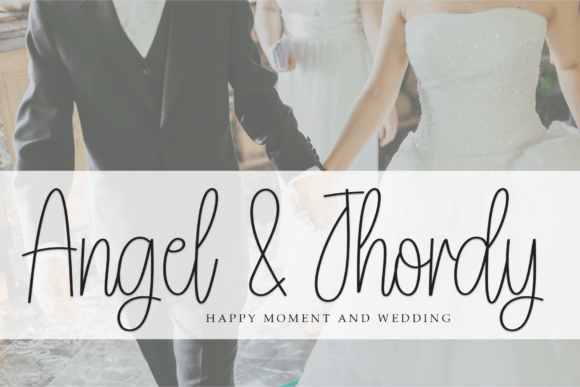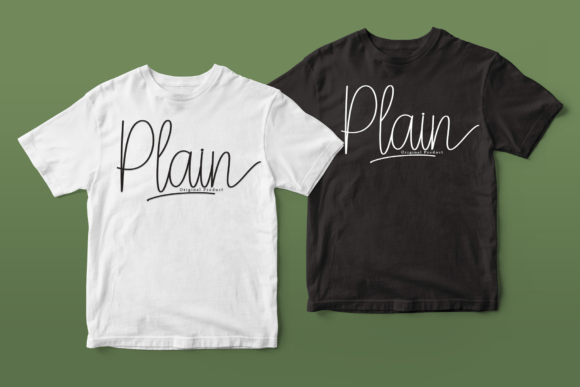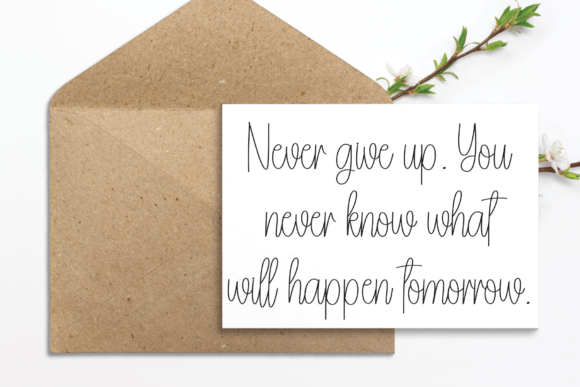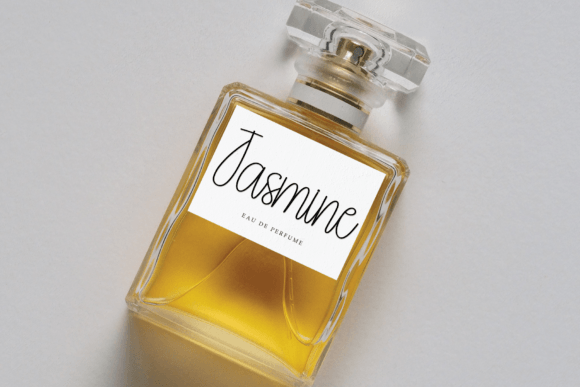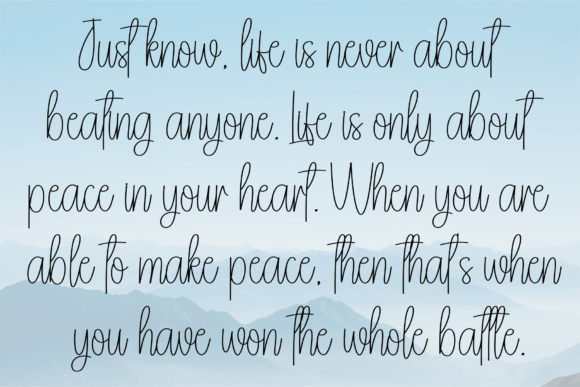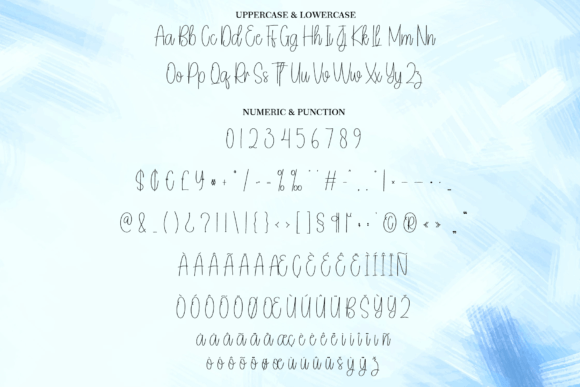
Discover the Joy of Bluey Font
Who hasn’t scribbled out a heartfelt message to a loved one, only to crumple it up in frustration because it just doesn’t look as lovely as it did in our minds? We’ve all been there, and it’s moments like these that make us appreciate the beauty of a well-designed font. That’s where Bluey Font comes in – a sweet and friendly handwritten font that adds a touch of warmth to any design.
Perfect for wedding invitations, cards, or any other design that needs a little extra love, Bluey Font is a valuable asset for designers looking to add a personal touch to their work. With its cute and fun aesthetic, it’s no wonder this font has become a go-to choice for creatives around the world.
Bluey Font Key Features
- Unique Characteristics: Bluey Font features a distinctive, hand-drawn design with a mix of smooth and textured elements, giving it a unique and playful feel.
- X-Height and Kerning: The font has a moderate x-height, making it suitable for body text, and features carefully designed kerning pairs to ensure smooth letter spacing.
Bluey Font Review
I recently had the chance to work with the Bluey Font, and I must say it’s a unique and interesting addition to any design project. Here are my thoughts:
- ✨ The font’s playful and whimsical feel makes it perfect for children’s books, educational materials, or any project that requires a lighthearted tone.
- ✨ Bluey Font is highly customizable, allowing designers to easily adjust the font’s size, color, and spacing to fit their needs.
- ✨ The font’s OpenType features enable advanced typography effects, adding an extra layer of creativity to your designs.
- ⚠️ The font may be too cursive for projects that require a more formal or serious tone, potentially overwhelming the reader.
- ⚠️ Bluey Font can be quite busy, making it challenging to read in certain contexts or when used in large blocks of text.
- ⚠️ Limited support for some languages may limit the font’s versatility in global design projects.
While the Bluey Font has its limitations, it’s a fantastic choice for projects that require a touch of playfulness and whimsy. With its high level of customizability and advanced typography features, it’s an excellent addition to any designer’s toolkit. Just be mindful of its potential drawbacks and use it thoughtfully to achieve the desired effect.
The Bluey Font is a versatile font that can be used for a variety of purposes, including:
- Brand logos and typography
When using the Bluey Font, be sure to experiment with different font sizes, colors, and combinations to get the most out of it.